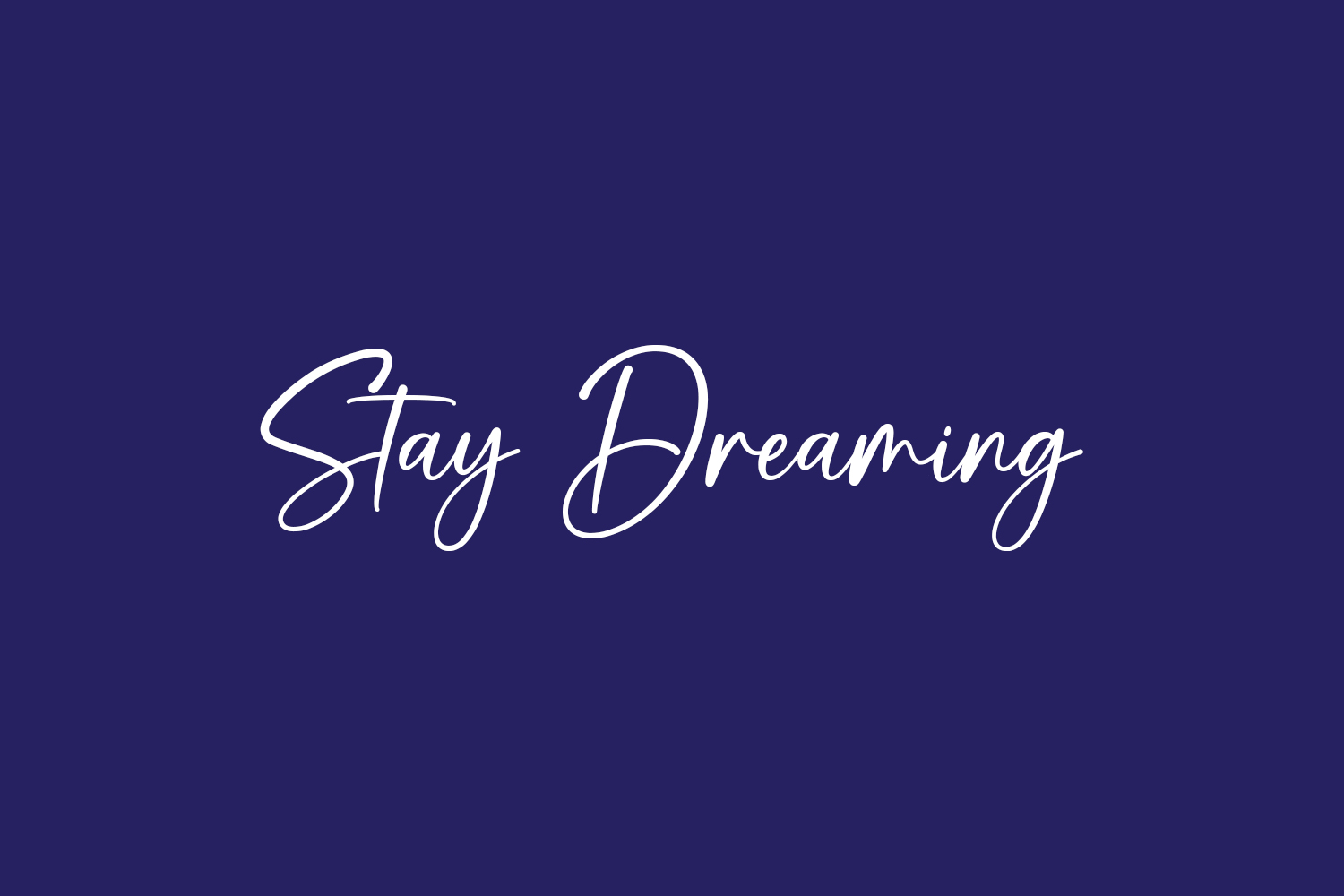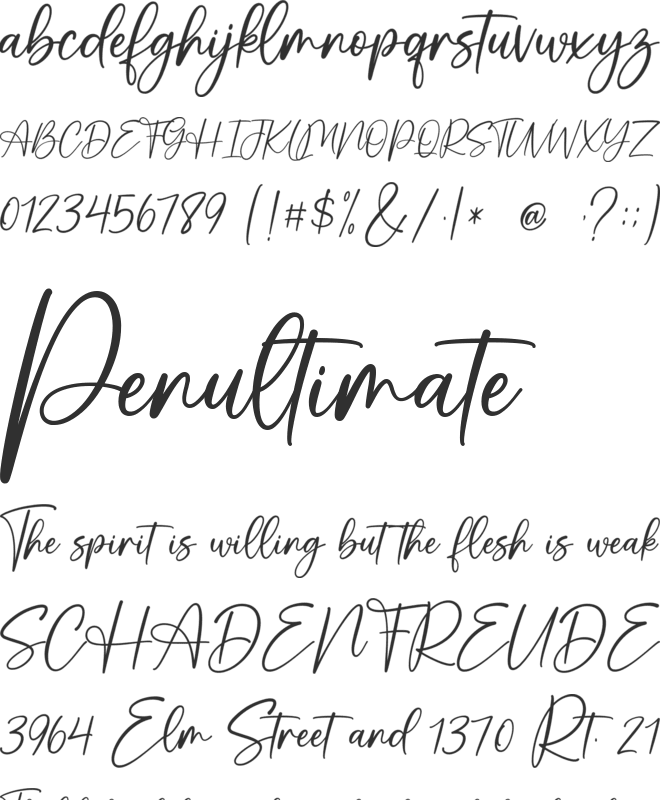
Stay Dreaming Font
Stay Dreaming Font - Web by dafont december 22, 2023. Stay dreaming is a charismatic and lovely handwritten typeface with a classical and cool form.
Stay Dreaming Is A Charismatic And Lovely Handwritten Typeface With A Classical And Cool Form.